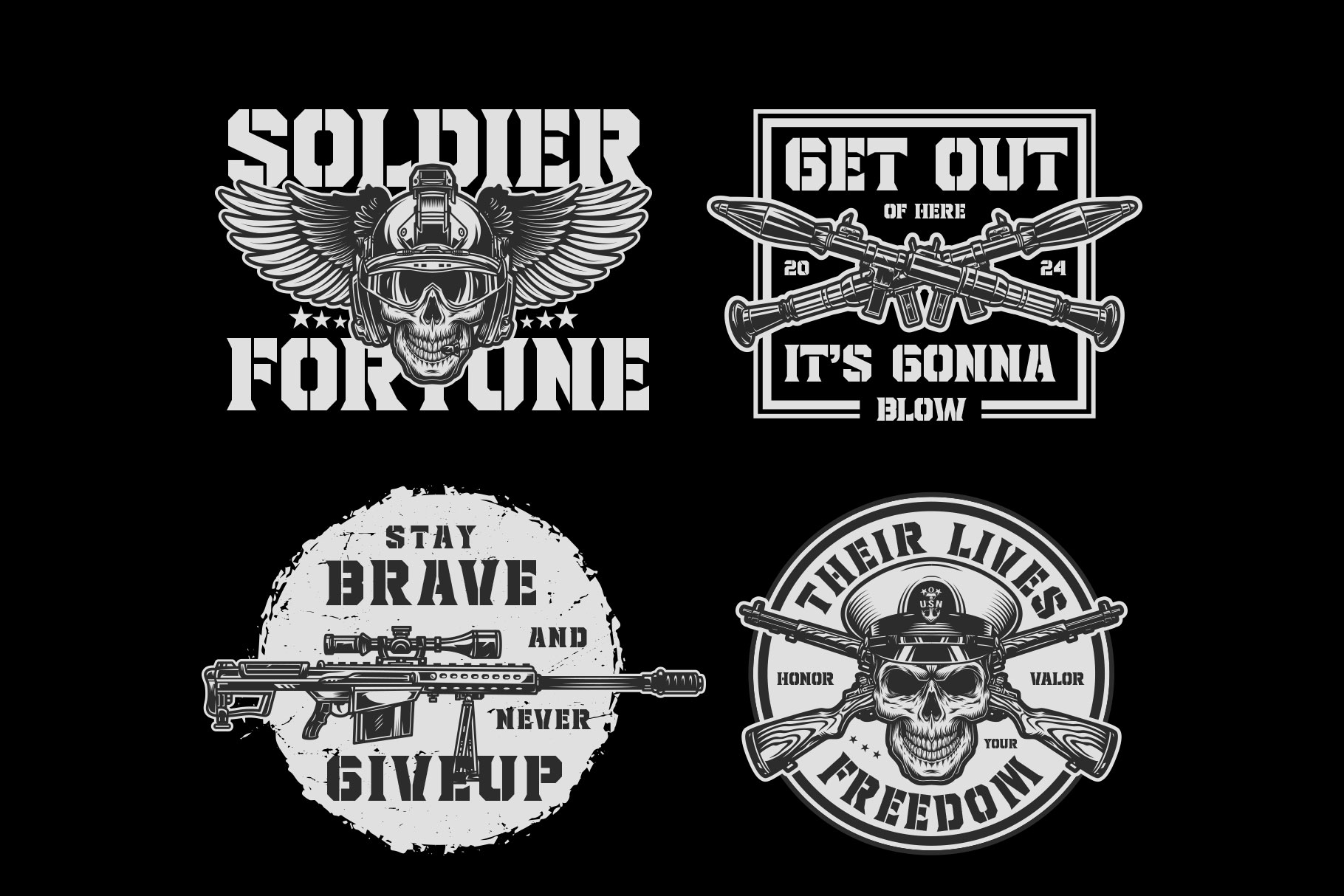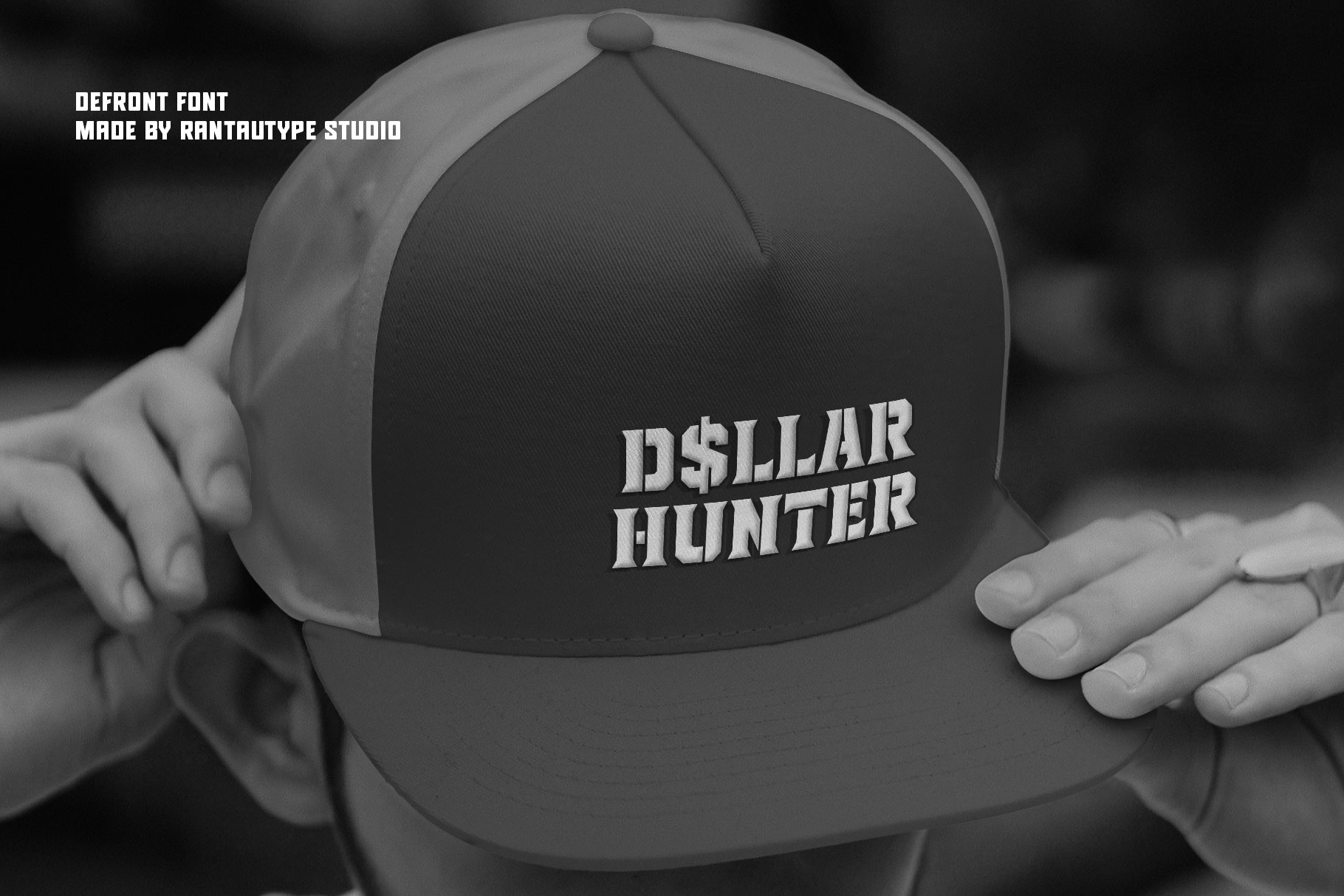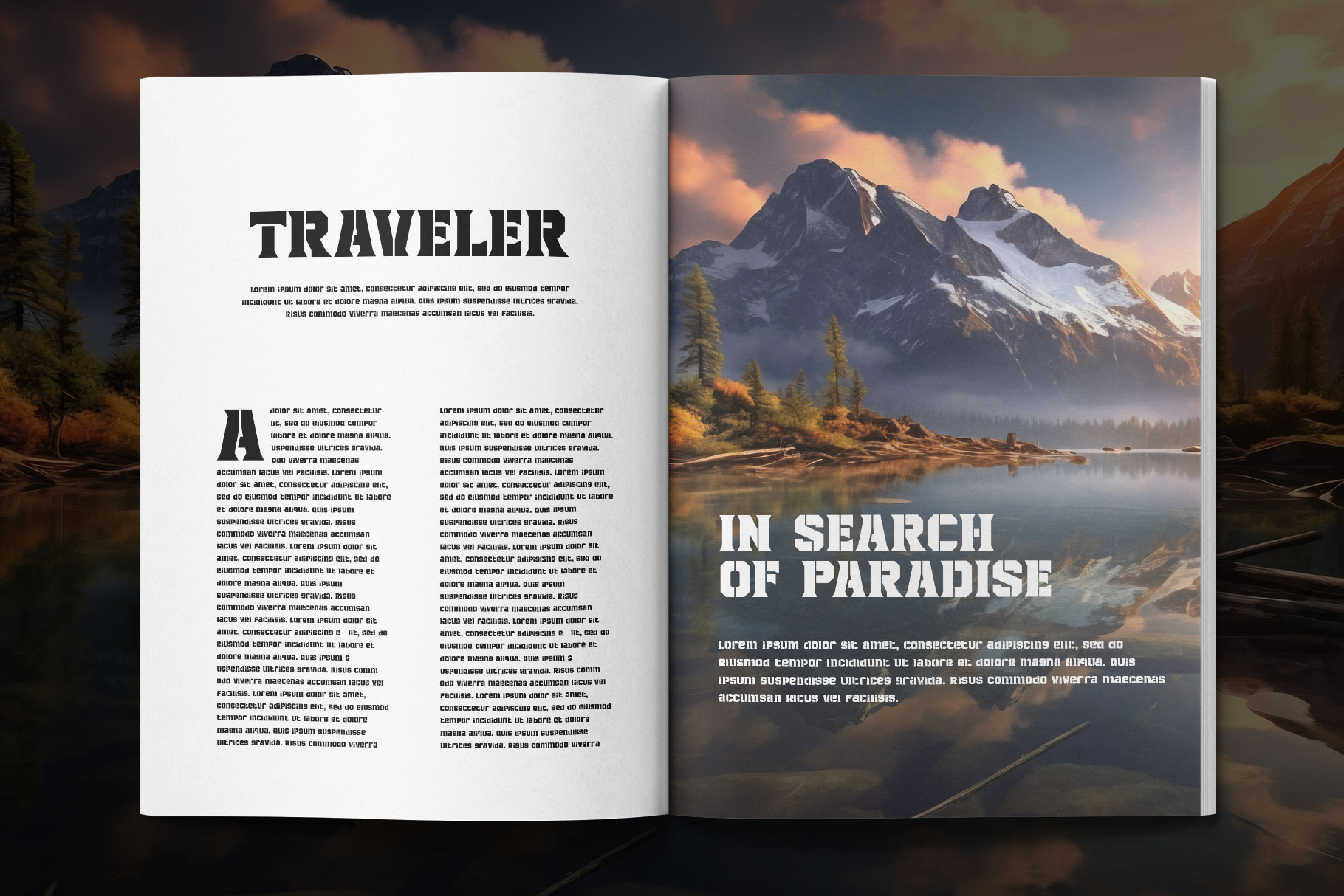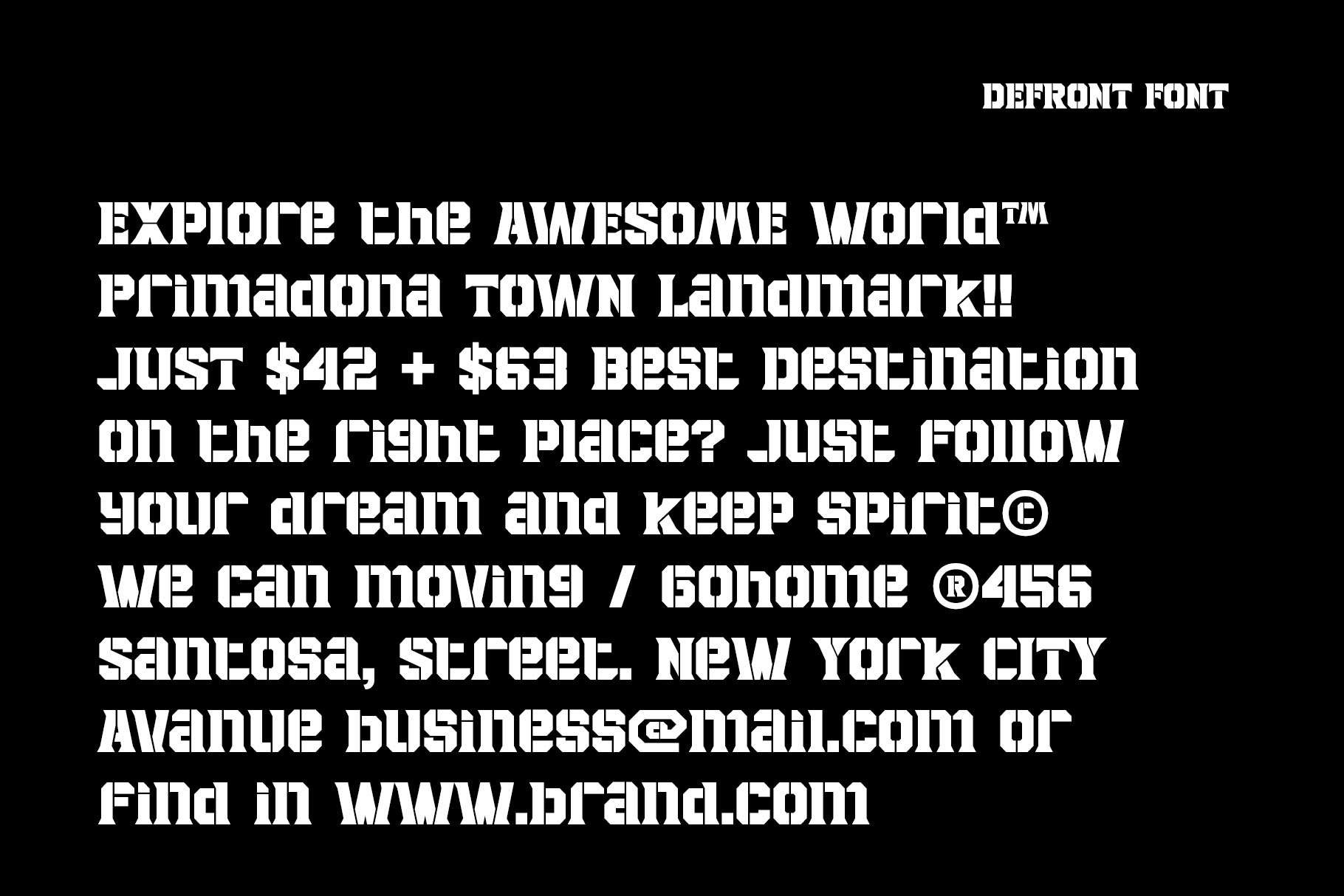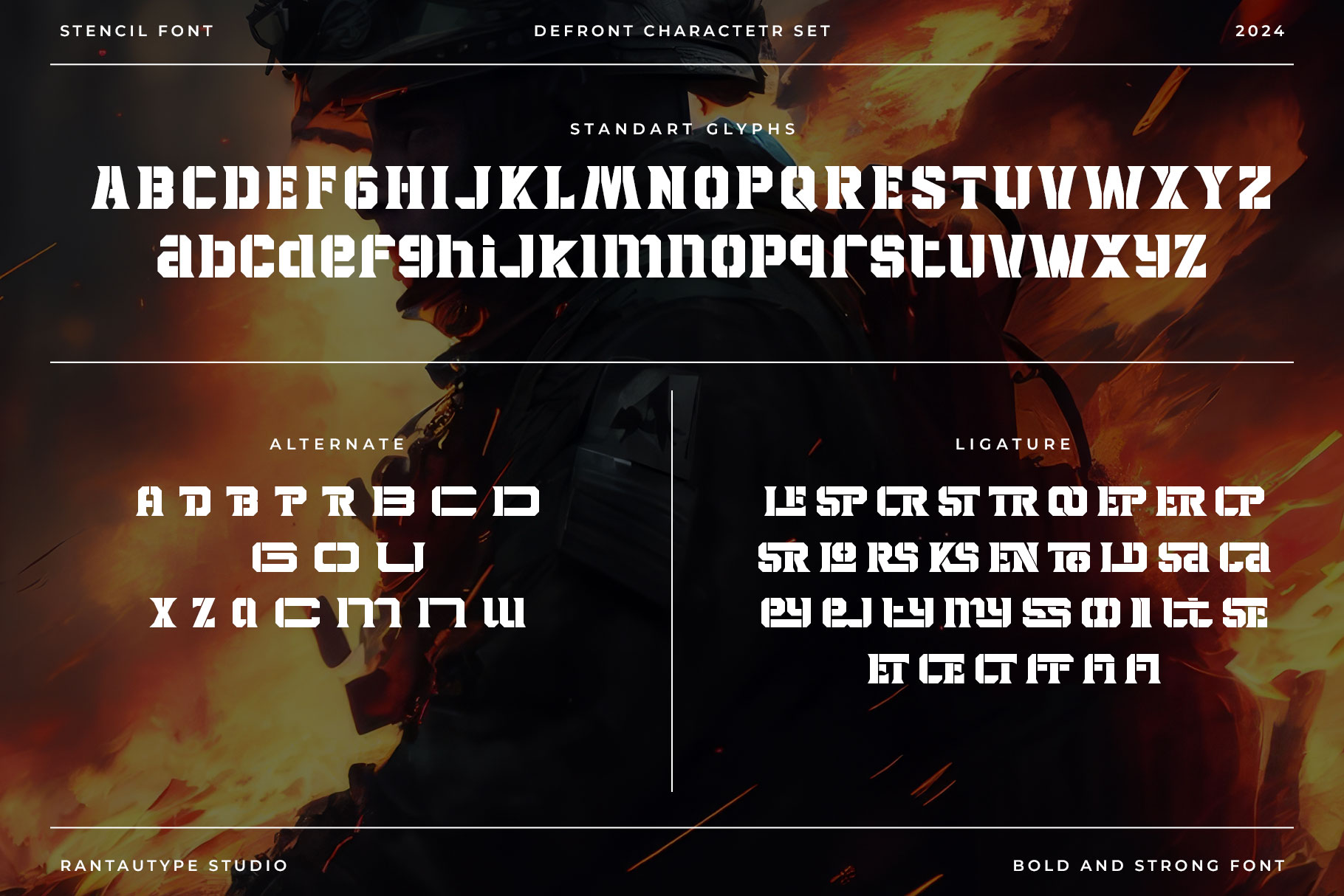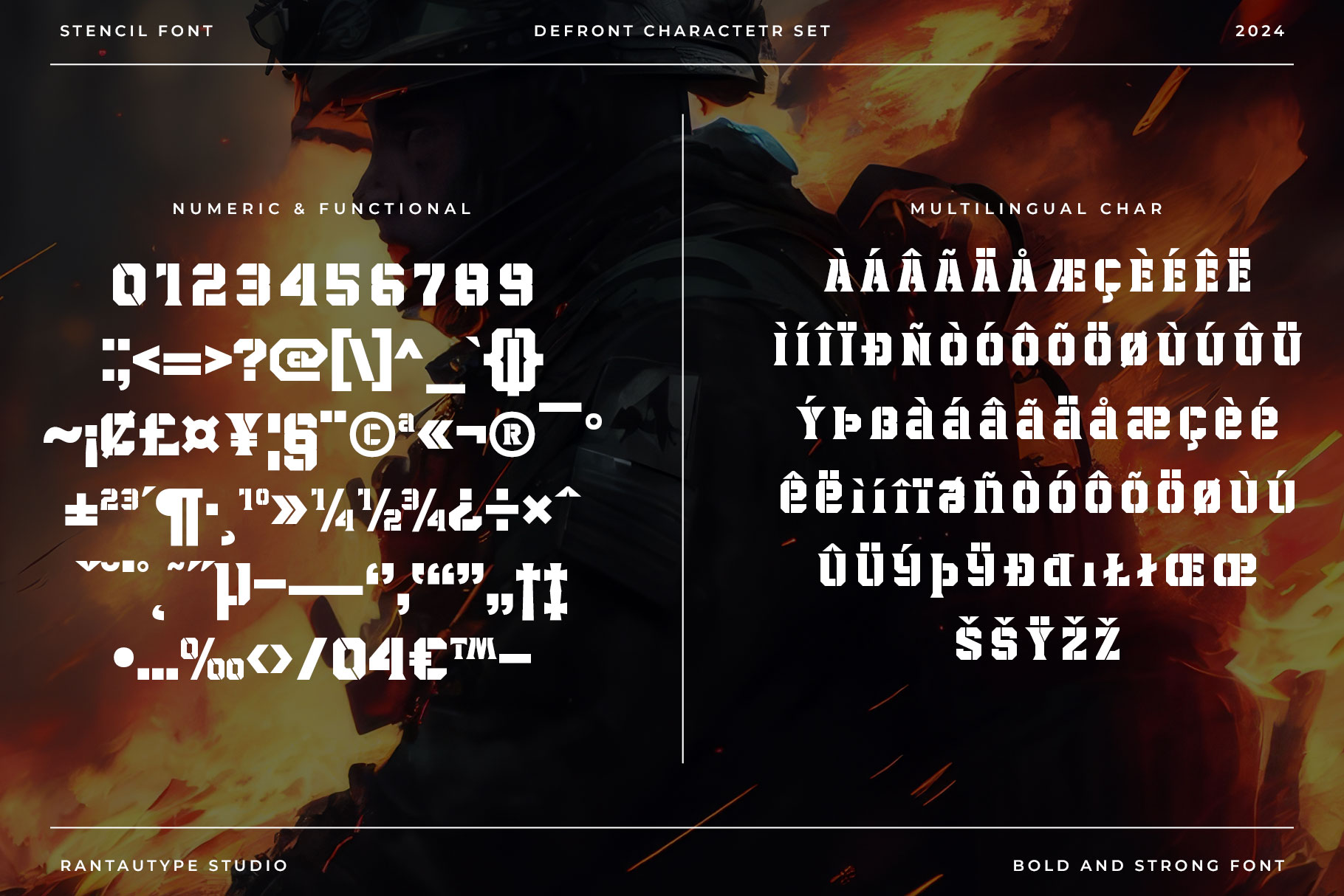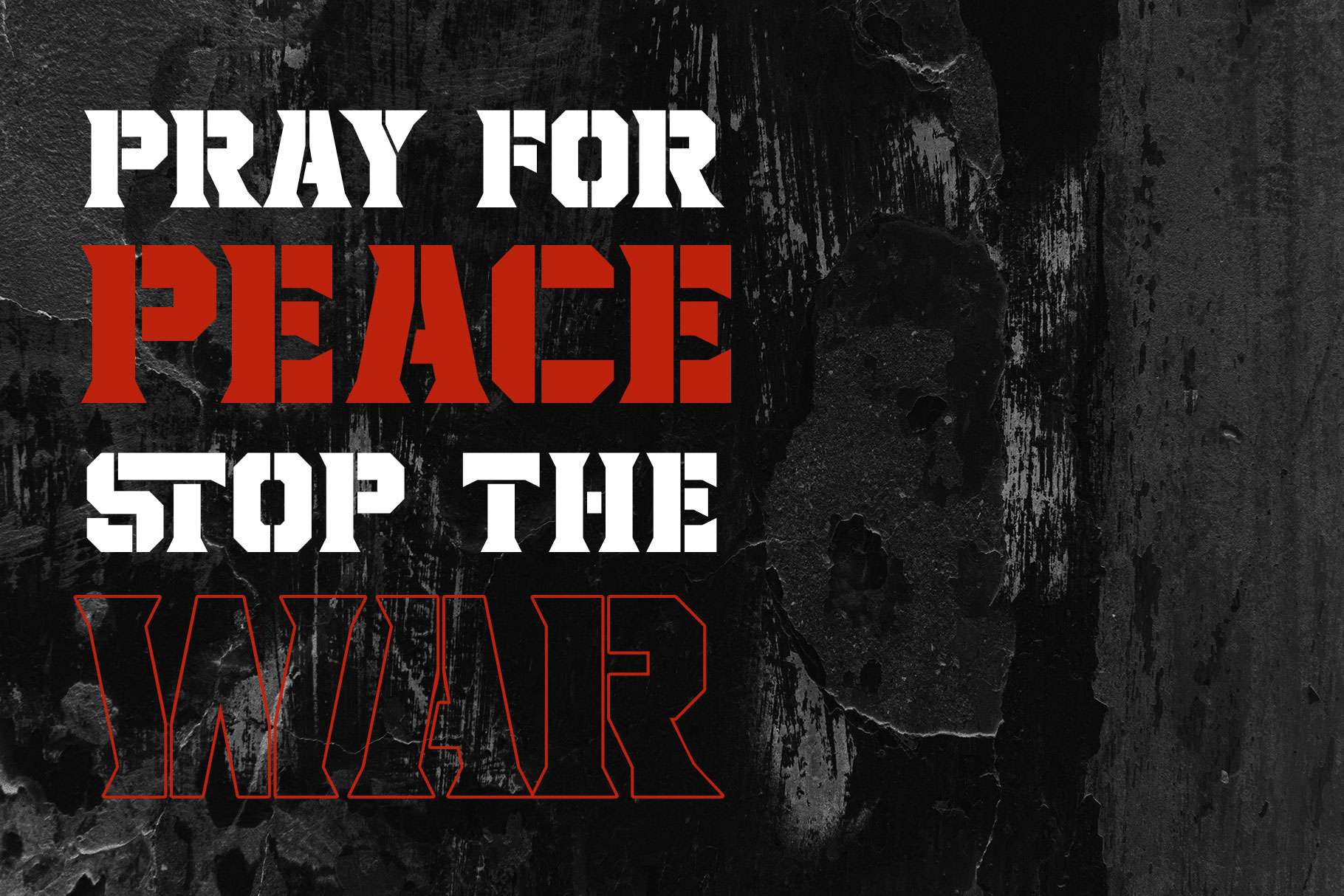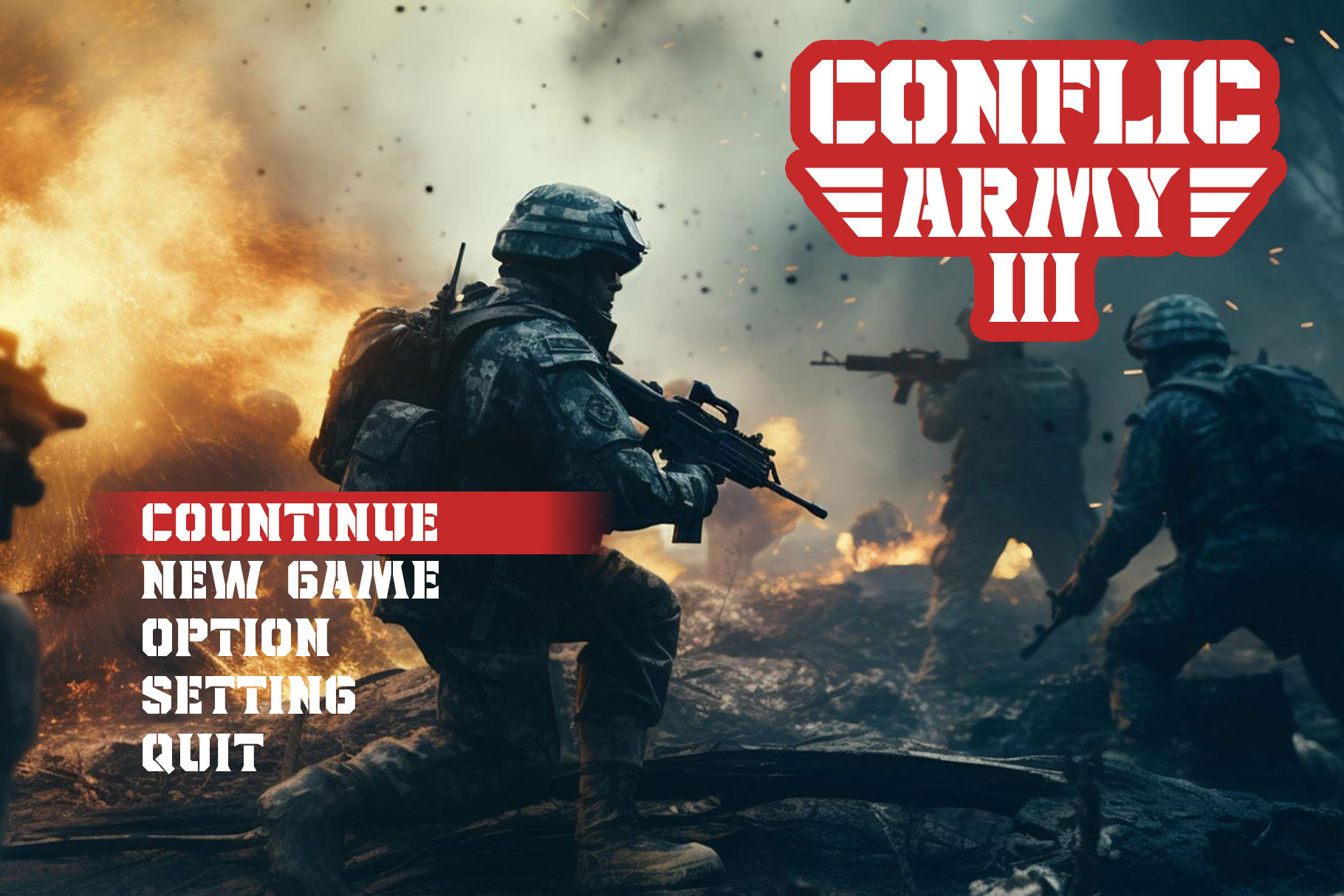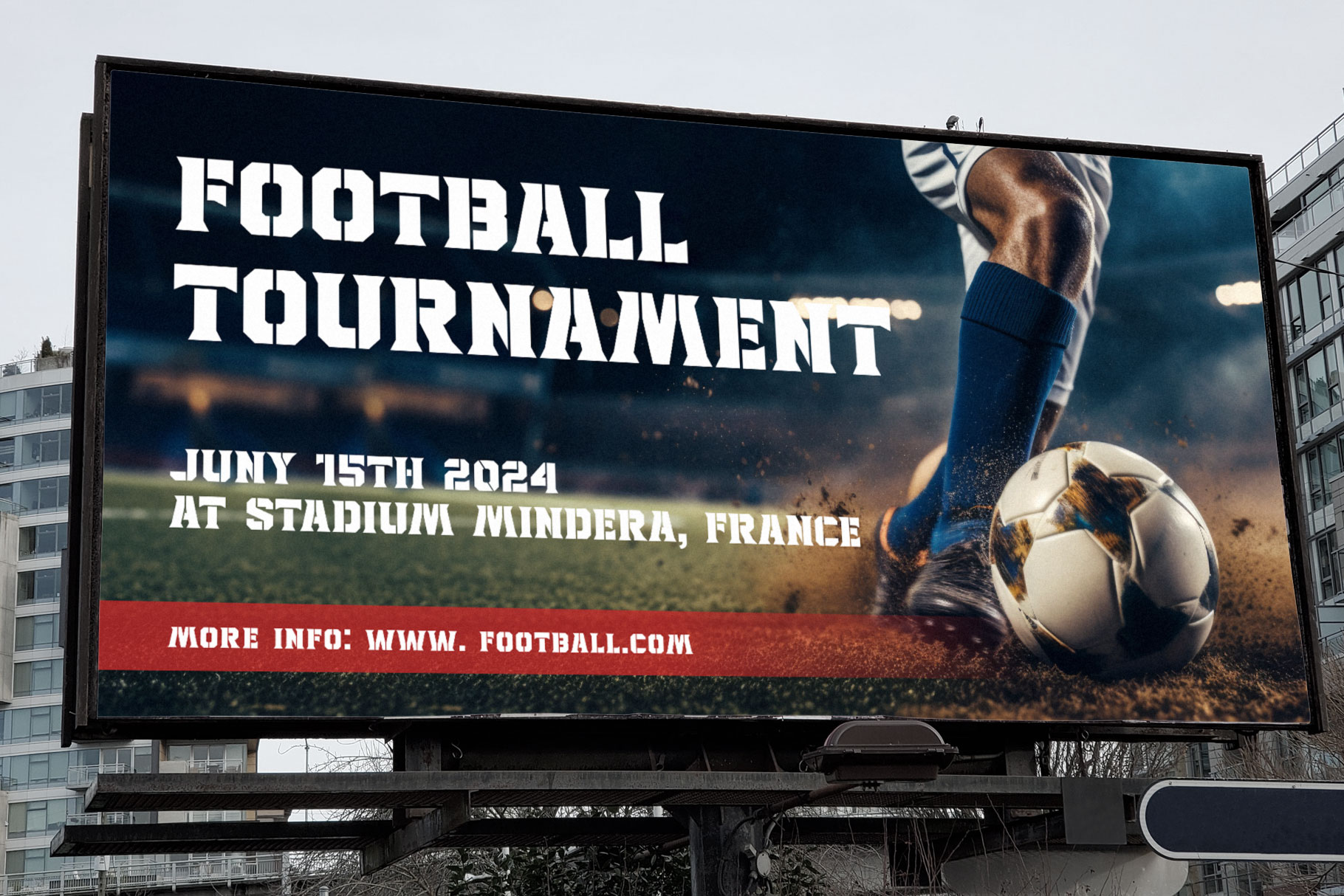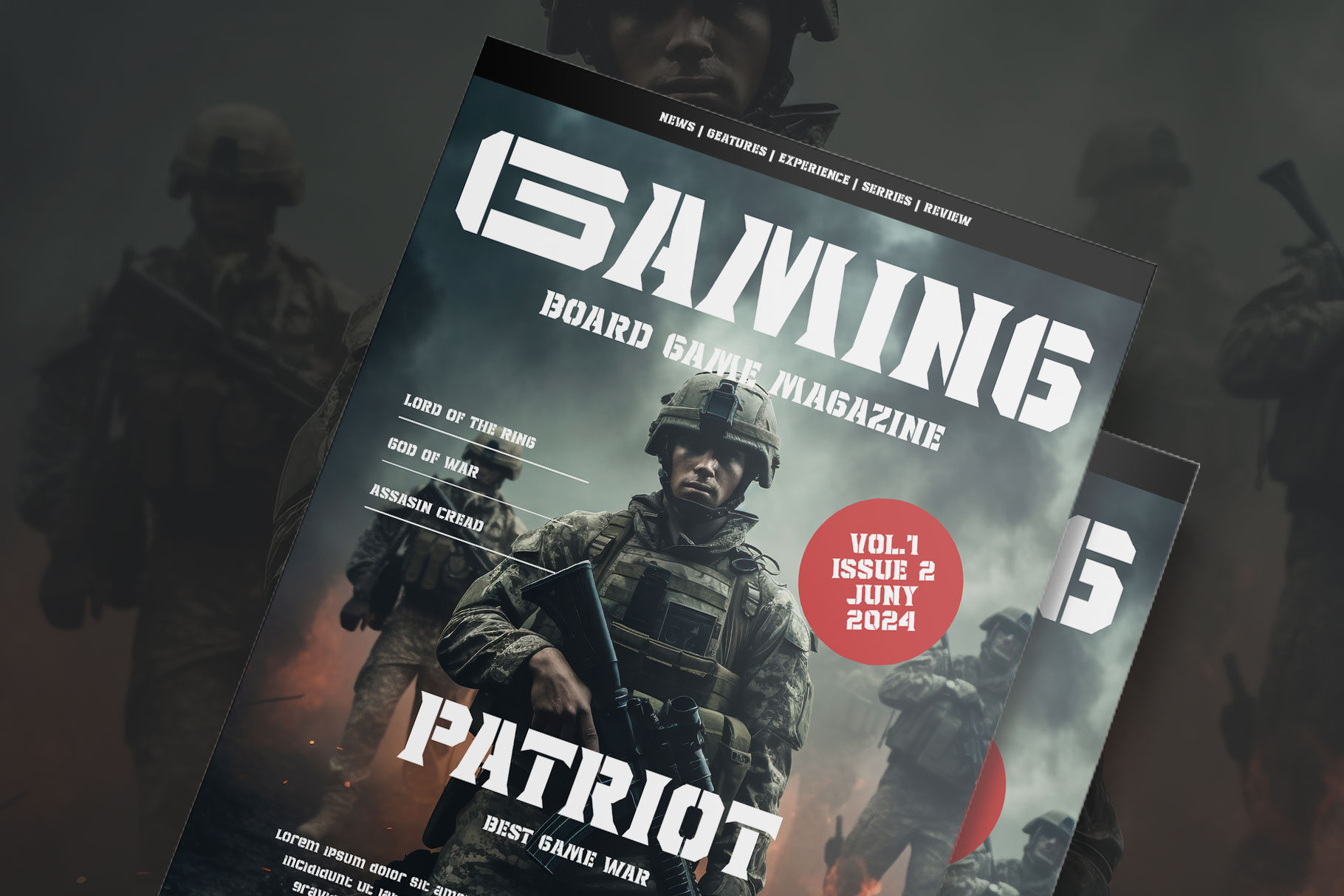
Defront Stencil Font
Defront is a stencil form inspire by millitary visual design. Defront bring bold and strong geometric shape to create design project versatile look.
Defront is a perfectly choice for any creative endeavor, bold and strong, lifestyle design such as logotype, advertisements, caution design, stationery, branding project, display and magazine, invitation, corporate brand, product design, label, business project and many other project with millitary or sport touch.
• Standar letter A-Z and a-z